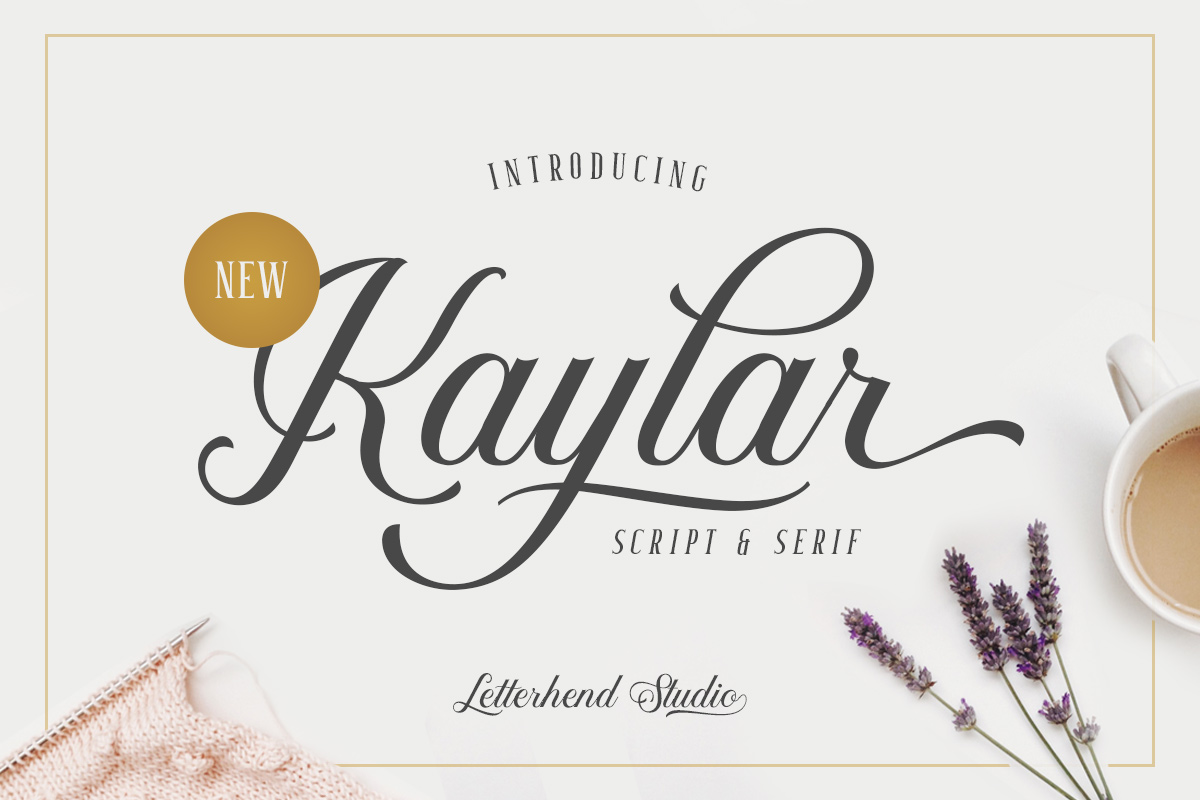
Kaylar Duo Font
The Kaylar Duo Font is a versatile and elegant typeface package that provides a complete design solution right out of the box. This duo typically includes a beautiful, flowing script font and a clean, modern sans-serif or serif font that are perfectly paired to work together. This combination is ideal for creating a professional and harmonious look across all your projects, from sophisticated wedding invitations and high-end branding to social media graphics and stylish packaging. The Kaylar Duo Font is a must-have for designers, small business owners, and anyone looking to create a polished brand identity with ease.
What makes the Kaylar Duo Font so exciting is the effortless synergy between the two typefaces. You don’t have to spend time searching for fonts that complement each other; this duo is already designed to create a balanced and beautiful visual hierarchy. The script font adds a personal and artistic touch, while the complementary font provides excellent readability and structure. This dynamic pairing allows you to create designs that are both expressive and clear. The Kaylar Duo Font is more than just a set of letters; it’s a tool that simplifies the design process, ensuring your final work looks cohesive and professionally crafted every time.
The Kaylar Duo Font family is comprehensive, with both fonts offering a full set of uppercase and lowercase letters, numbers, and punctuation. The script font often includes a rich collection of ligatures and swashes, which allow you to create stunning, custom-lettered headlines and flourishes. The complementary sans-serif or serif font is designed with clean, legible lines, making it perfect for body text, subtitles, or a strong brand logo. This extensive feature set provides incredible creative flexibility, allowing you to use the fonts together for a powerful effect or individually for different design needs.